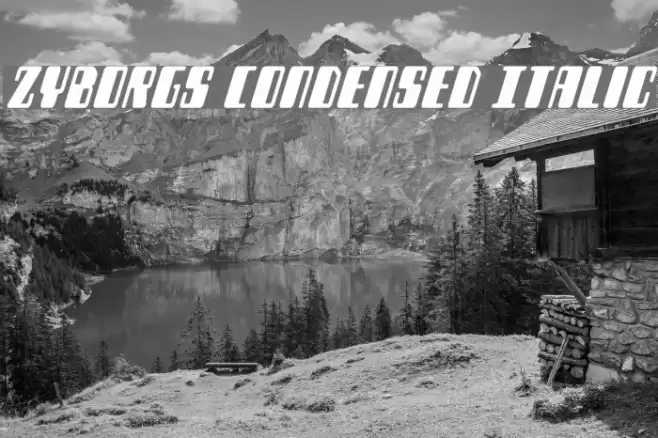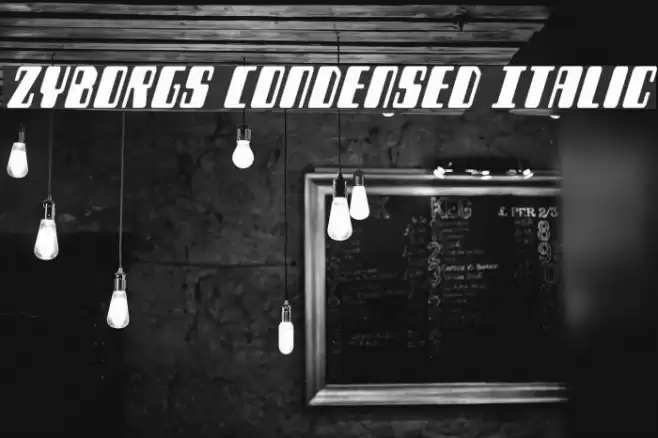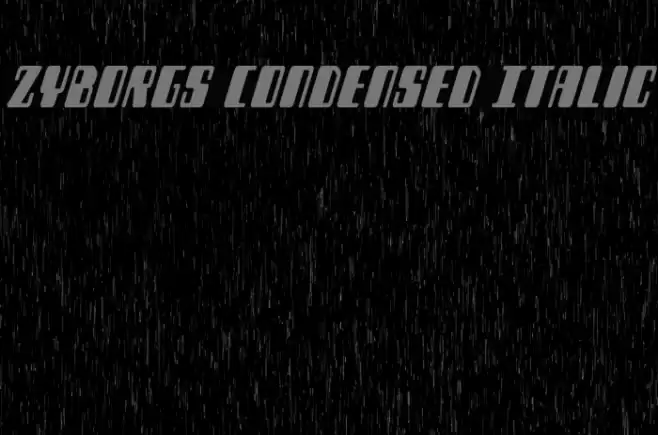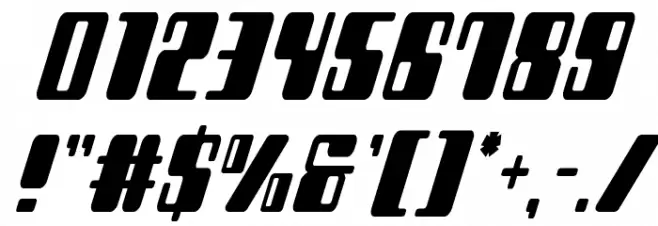
Zyborgs Condensed Italic Font
Zyborgs Condensed Italic Description
This font features a futuristic and dynamic design with a condensed and italicized style. The characters are bold and angular, giving a sense of speed and modernity. The strokes are thick and consistent, with sharp edges and a slight slant to the right, enhancing the italic effect. The overall appearance is sleek and powerful, suitable for making a strong visual impact. The numbers and special characters maintain the same bold and angular characteristics, ensuring consistency across all elements.
A bold, condensed, and italicized font with a futuristic and dynamic style from Uncategorized fonts.
- Proposed Projects: Ideal for sci-fi themed projects, technology branding, video game titles, and dynamic posters.
- Character Spacing: Tight